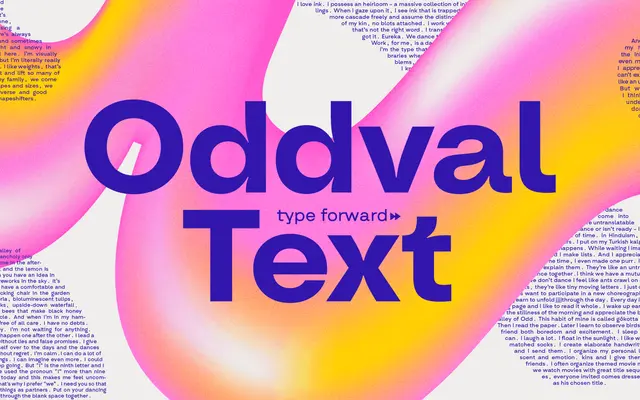
Oddval Text
Type Forward · Stan Partalev and Mirela Belova
A geometric sans serif by Stan Partalev and Mirela Belova, adapted from the Oddval display family for continuous text use across nine weights with full variable font support.
Carrying the oval geometric character of the Oddval family into a text-optimised setting, this face runs from Hairline to Black in both regular and italic, with a variable font covering the full weight range. A broad OpenType feature set includes ligatures, fractions, small figures, slashed zero, case-sensitive punctuation and several stylistic sets, among them an oval Cyrillic variant. Latin and Cyrillic script coverage makes it suitable for multilingual publishing.
Described explicitly as a geometric sans serif, tuned for text setting, with oval forms and stylistic sets that reinforce the geometric character of its display sibling Oddval.